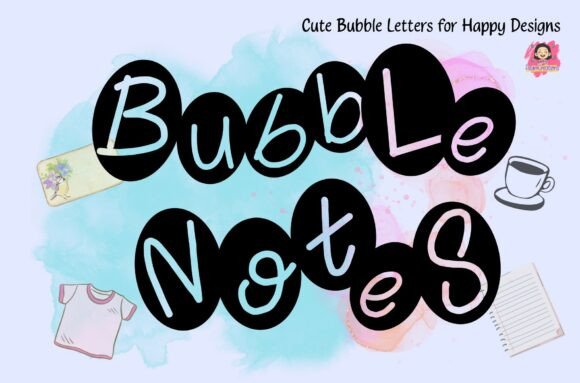
Bubble Notes Font: The Ultimate Guide to Adding a Pop of Fun to Your Designs
In the world of typography, fonts play a crucial role in conveying the tone and personality of a design. When it comes to creating fun, playful, and youthful designs, the right font can make all the difference. This is where the Bubble Notes font comes in โ a delightful, decorative font that’s perfect for adding a touch of whimsy and joy to any creative project.
What is Bubble Notes Font?
Bubble Notes is an irresistibly fun and bubbly decorative font designed to bring joy and energy to any creative project. With playful, oversized shapes and a handwritten flair, each letter pops off the page like cheerful doodles in a teenager’s journal. The dark, bold bubble outlines provide strong contrast, while the quirky inner strokes give the font a charming, handwritten personality thatโs both casual and expressive.
Key Features of Bubble Notes Font
- Playful and oversized shapes: The Bubble Notes font features playful, oversized shapes that give it a fun and youthful vibe.
- Handwritten flair: The font has a handwritten flair that adds to its charm and personality.
- Dark, bold bubble outlines: The dark, bold bubble outlines provide strong contrast and make the font stand out.
- Quirky inner strokes: The quirky inner strokes give the font a charming, handwritten personality.
Perfect for a Variety of Design Projects
Bubble Notes font is perfect for a wide range of design projects, including:
- Cute stationery: Add a touch of fun and whimsy to your stationery designs with the Bubble Notes font.
- School supplies: The font is ideal for designing school supplies, such as notebooks, pencils, and pens.
- Kidsโ clothing prints: The Bubble Notes font is perfect for designing fun and playful kidsโ clothing prints.
- Fun product packaging: Add a pop of fun and personality to your product packaging with the Bubble Notes font.
- Planner stickers: The font is ideal for designing planner stickers and other journaling accessories.
- Digital scrapbooking: The Bubble Notes font is perfect for adding a touch of fun and whimsy to your digital scrapbooking projects.
- Youth-focused branding: The font is ideal for designing youth-focused branding, such as logos, business cards, and brochures.
Who is the Bubble Notes Font Suitable for?
The Bubble Notes font is especially ideal for designs targeting:
- Pre-teens: The font’s playful and fun design makes it perfect for designs targeting pre-teens.
- Teens: The Bubble Notes font is ideal for designs targeting teens who appreciate fun and youthful aesthetics.
- Anyone who appreciates joyful, lighthearted aesthetics: The font is perfect for anyone who appreciates fun, playful, and lighthearted designs.
Tips for Using the Bubble Notes Font
Here are some tips for using the Bubble Notes font in your designs:
- Use it sparingly: Use the Bubble Notes font sparingly to add a pop of fun and personality to your designs.
- Pair it with other fonts: Pair the Bubble Notes font with other fonts to create a unique and interesting design.
- Experiment with colors: Experiment with different colors to find the perfect combination that matches your brand’s personality.
In conclusion, the Bubble Notes font is a fun and playful decorative font that’s perfect for adding a touch of whimsy and joy to any creative project. With its playful, oversized shapes and handwritten flair, it’s ideal for designs targeting pre-teens, teens, and anyone who appreciates joyful, lighthearted aesthetics. Whether you’re designing stationery, school supplies, kidsโ clothing prints, or fun product packaging, the Bubble Notes font is sure to spark smiles and add a pop of fun to your designs.